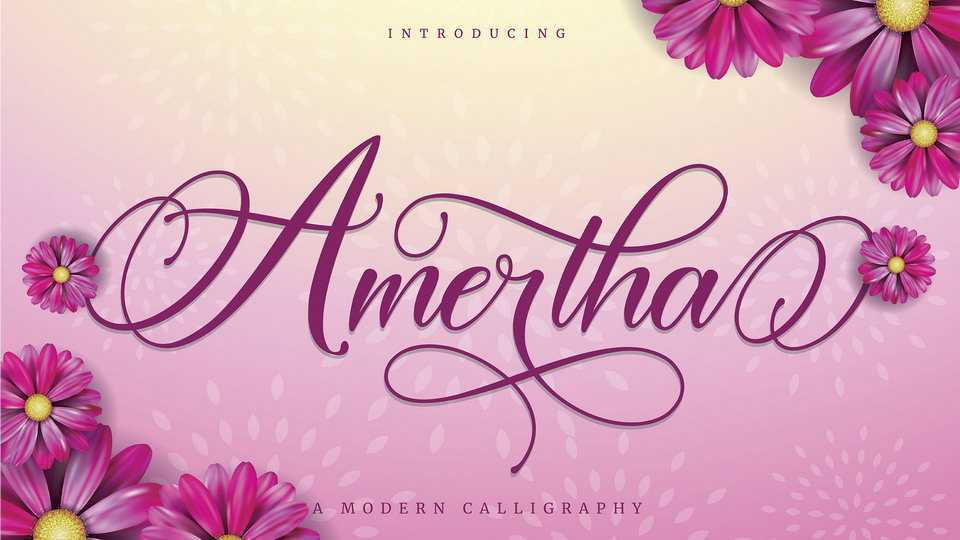
Download Amertha font, an elegant modern calligraphy typeface that will raise every craft idea to the highest level. Amertha comes with lots of swash to add decorative touches in seconds.